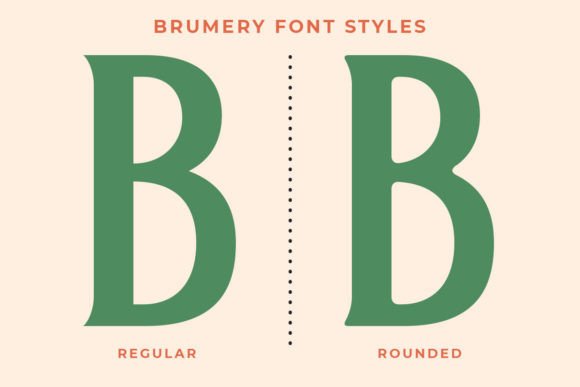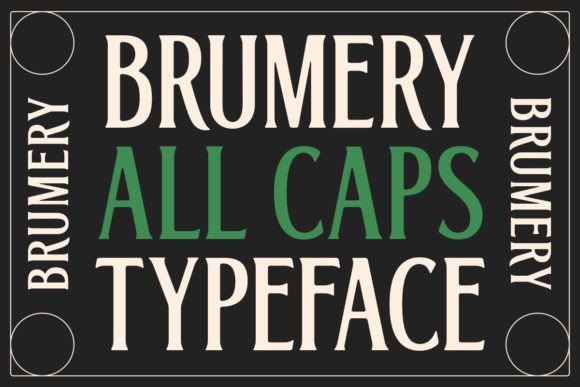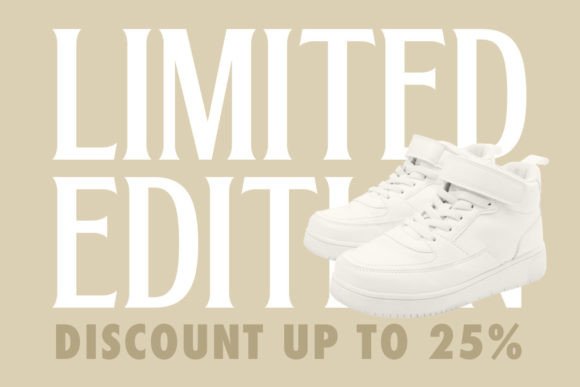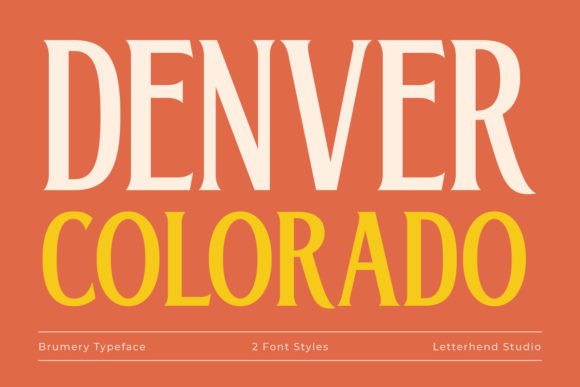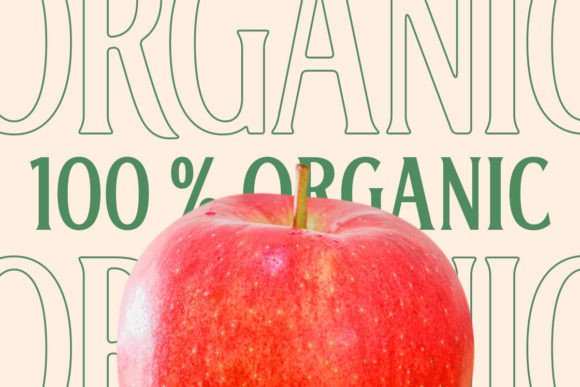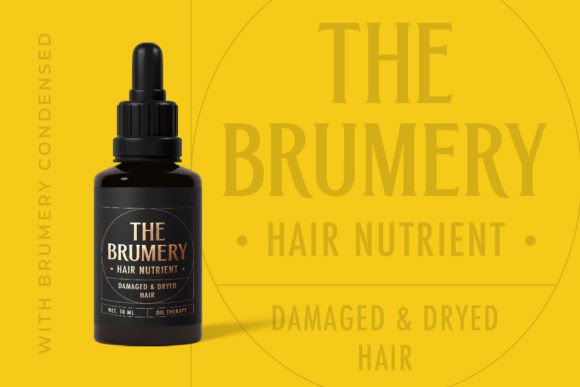
The Designer’s Dilemma: How Brumery Font Became My Go-To
I still remember the frustration of working on a project, hours spent crafting the perfect layout, only to realize that the font I chose wasn’t quite right. The client wanted something sleek and modern, but my font was falling flat. That’s when I stumbled upon Brumery Font, a sleek condensed serif font that has since become an incredible asset to my font library.
An Honest Review of Brumery Font
The Good, the Great, and the Brumery
- ✨ Sleek and modern design: Brumery Font has a sophisticated look that’s perfect for a wide range of projects, from branding to advertising.
- ✅ Highly versatile: Whether you’re designing a logo, brochure, or social media graphics, Brumery Font adapts seamlessly to different contexts.
- 💡 Excellent for headlines and titles: The condensed serif design makes it perfect for grabbing attention and adding visual hierarchy to your designs.
While Brumery Font is an excellent addition to any font library, there are a few things to keep in mind:
- 🤔 Limited use for body text: Due to its condensed design, Brumery Font may not be the best choice for lengthy paragraphs or body text.
The Story Behind Brumery Font
Brumery Font was designed with the modern designer in mind. Its creator aimed to craft a font that would be both sleek and sophisticated, with a unique condensed serif design that’s perfect for headlines and titles. The result is a font that’s both versatile and visually striking.
Q: What makes Brumery Font unique?
A: Brumery Font’s unique blend of sleekness and sophistication, combined with its condensed serif design, makes it an excellent choice for designers looking for a modern font.
Q: Is Brumery Font suitable for body text?
A: While Brumery Font can be used for body text, its condensed design makes it more suitable for headlines and titles.